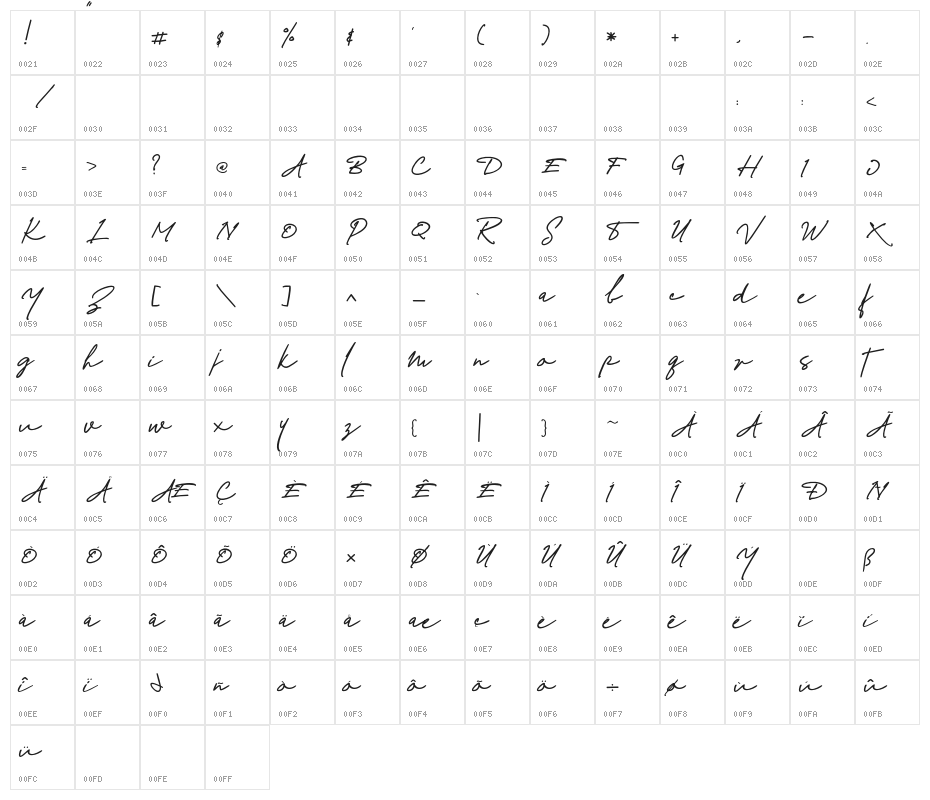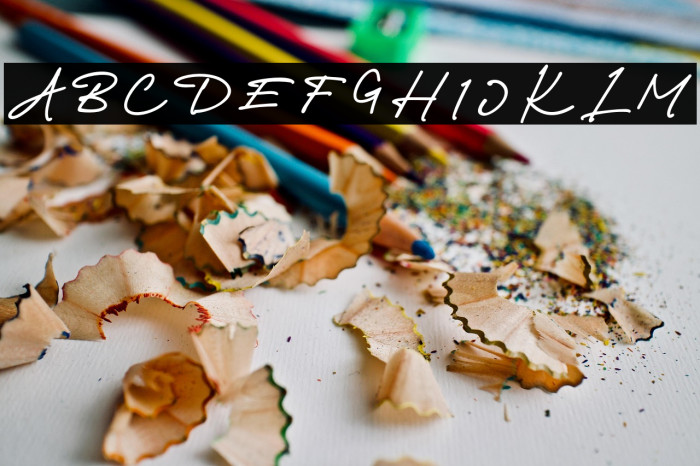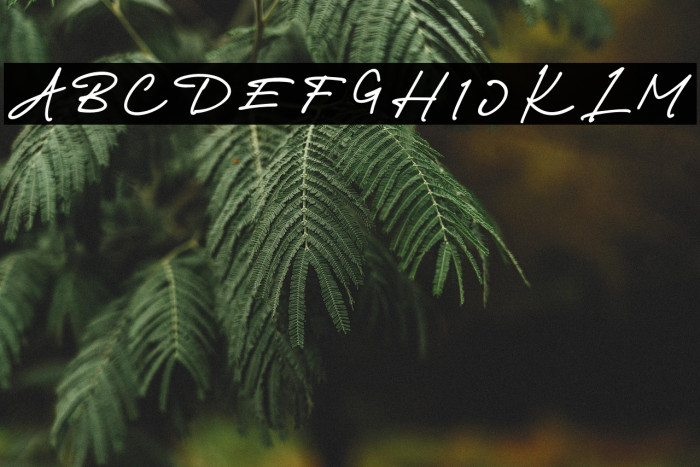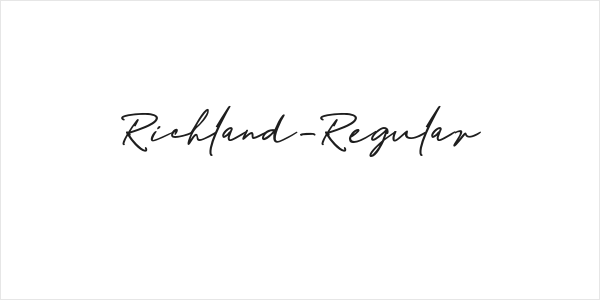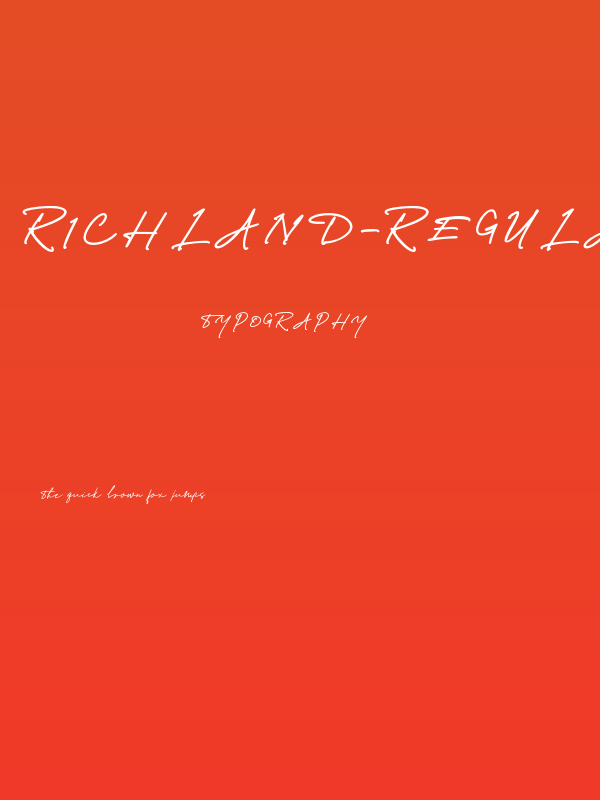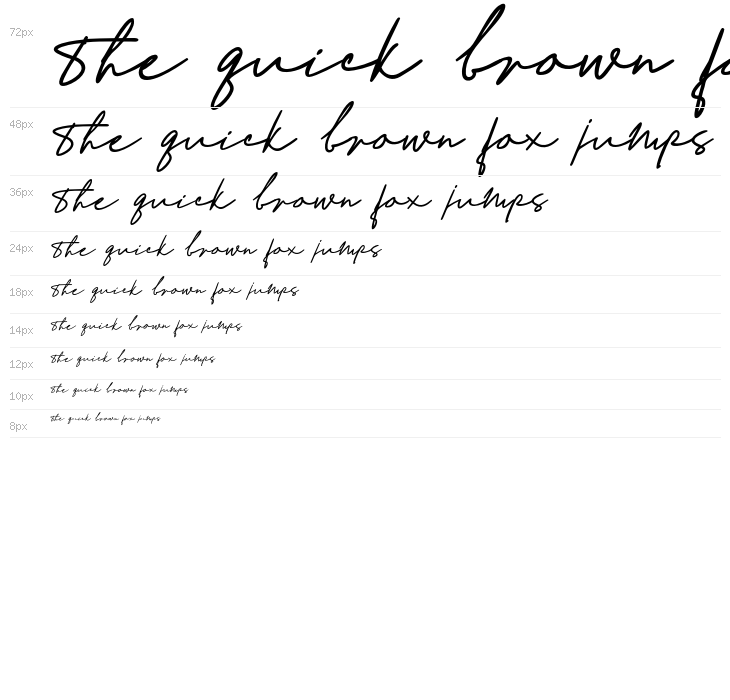
Richland-Regular Font
Richland-Regular Description
This font exhibits a fluid and elegant script style, characterized by its cursive, handwritten appearance. The uppercase letters are slightly slanted and connected, giving a sense of continuity and flow. The lowercase letters maintain a consistent style, with smooth curves and loops that enhance its calligraphic nature. The numerals and special characters are designed to match the overall aesthetic, providing a cohesive look. This font is well-suited for projects that require a personal touch, such as invitations, greeting cards, and branding materials.
| Overall Style | Elegant, Handwritten |
| Proposed Projects | Ideal for invitations, greeting cards, branding, and personal projects requiring a handwritten touch. |